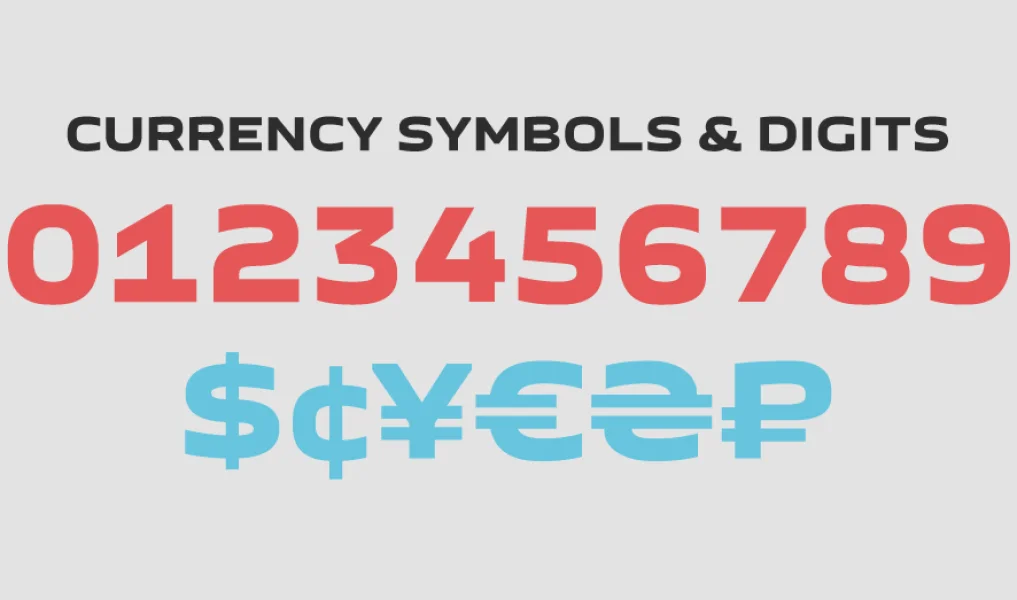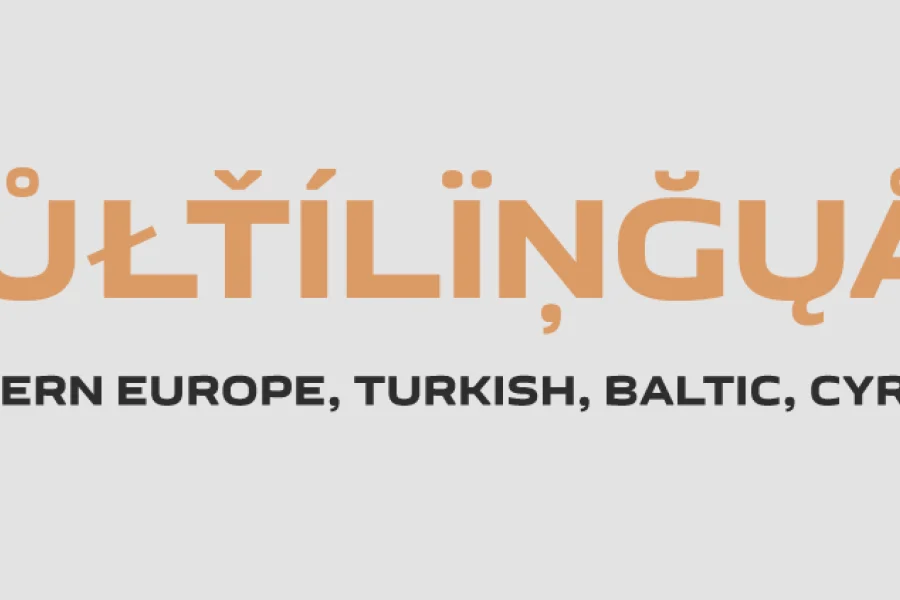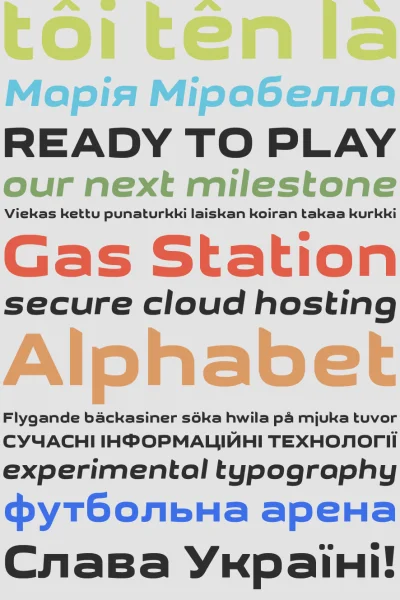
GetVoIP Grotesque has all the qualities needed for a solid and strong font: it’s legible at small sizes; but it looks absolutely fantastic in large sizes and heavier weights; and it offers true italics.
Grotesque was designed to exhibit the WOW factor of your copy, and is sure bring out the message within the message while still maintaining a subtle calligraphic touch. Its intended use is more for page headlines than body copy, but we love the way the GetVoIP Grotesque looks at every size.